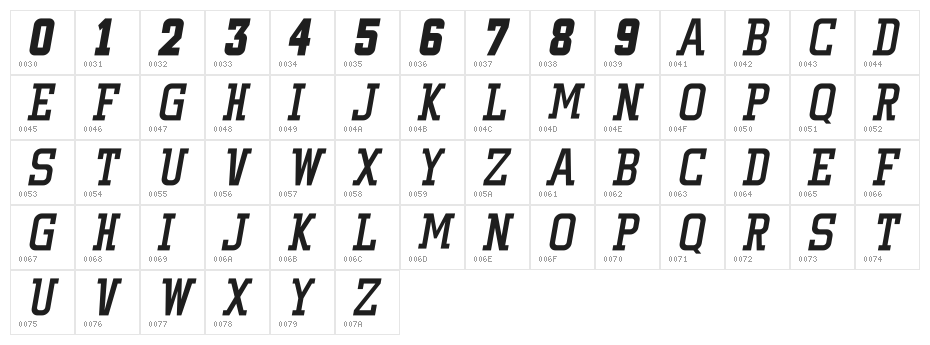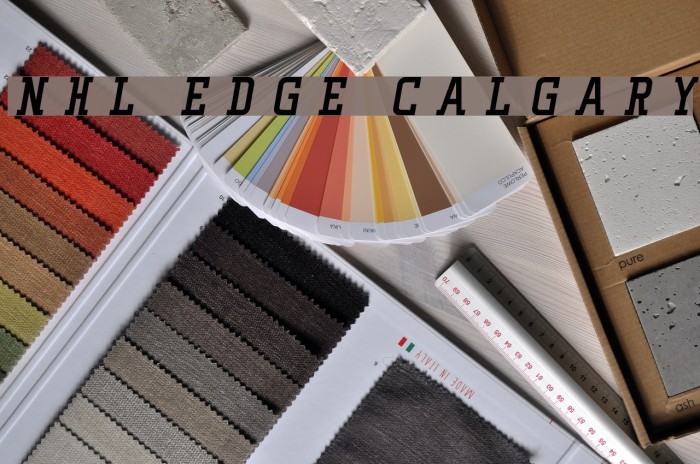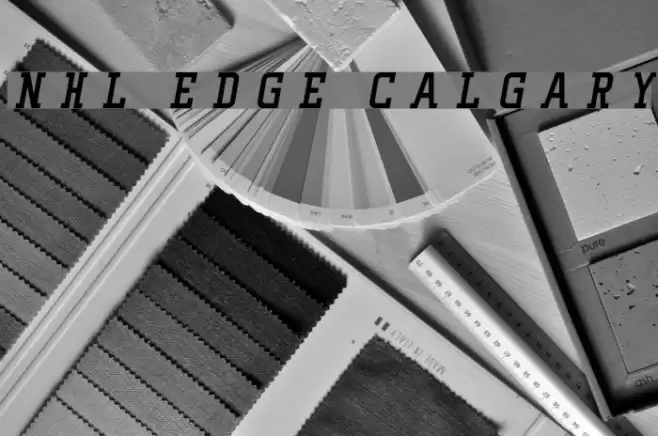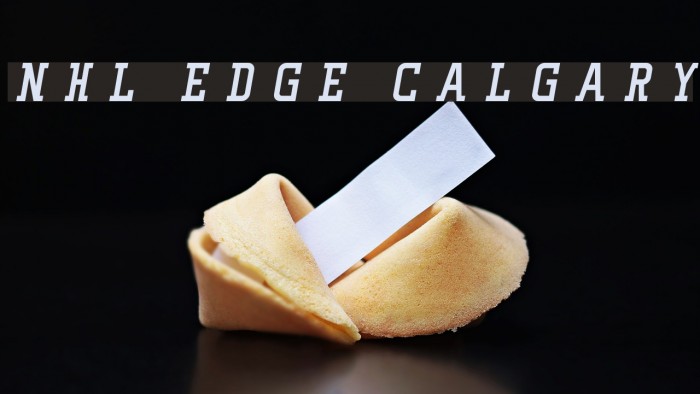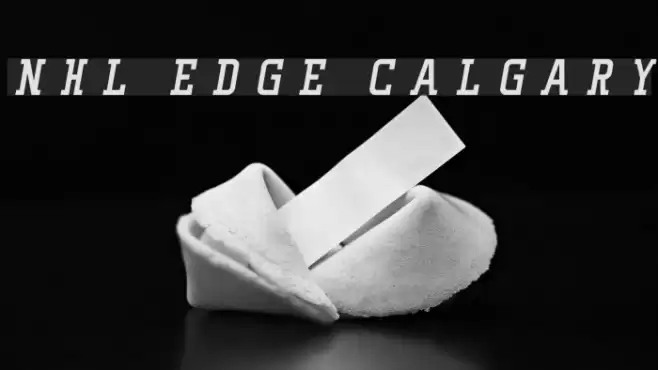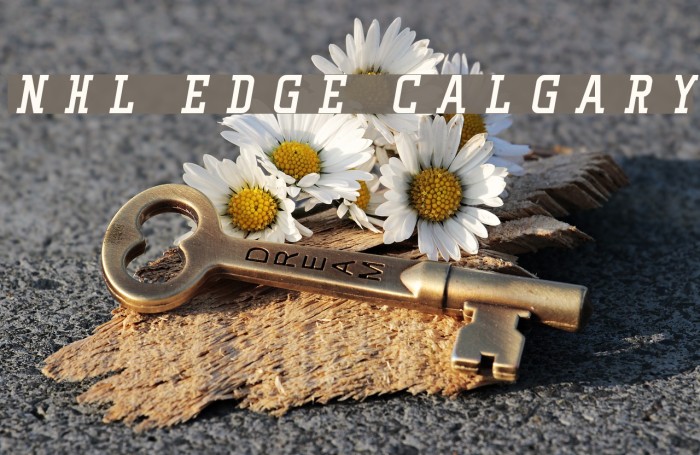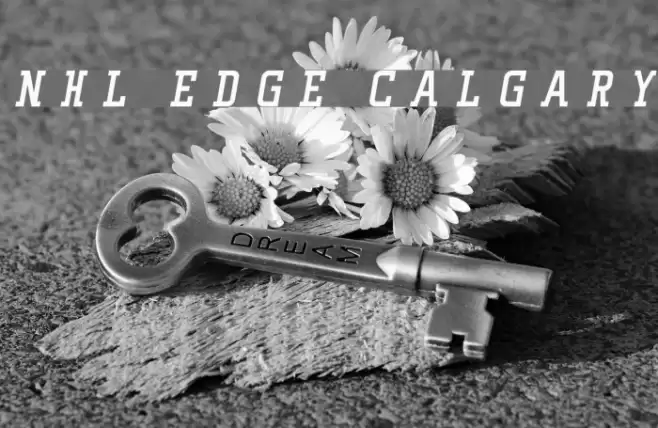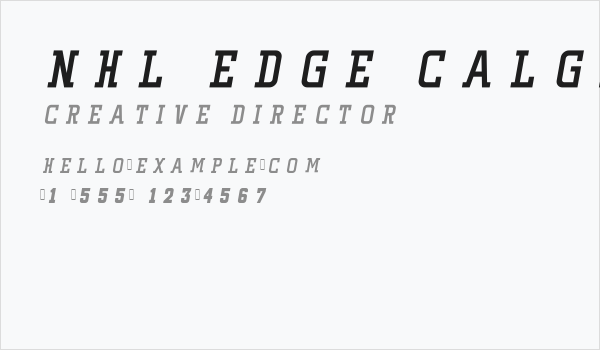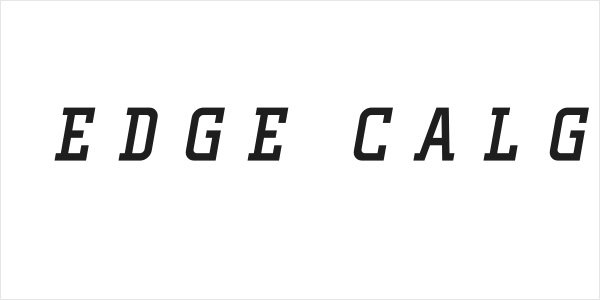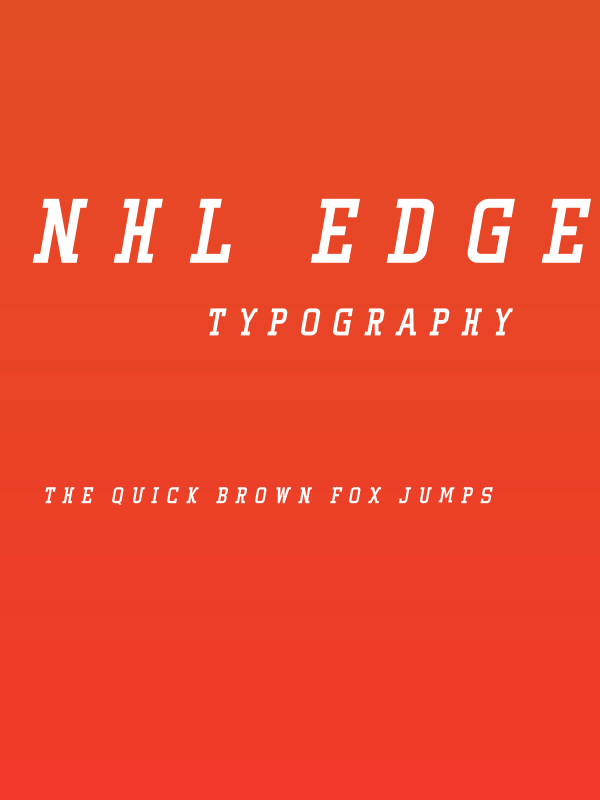
NHL Edge Calgary Font
NHL Edge Calgary Description
This font features a bold and dynamic design with a strong emphasis on angular lines and sharp edges. The uppercase letters are slightly slanted, giving a sense of motion and energy, which is further emphasized by the consistent use of thick, uniform strokes. The numbers follow the same stylistic approach, maintaining the boldness and angularity. The font's overall appearance is modern and sporty, making it ideal for applications that require a sense of speed and agility. The characters are well-spaced, ensuring readability while maintaining a compact and cohesive look.